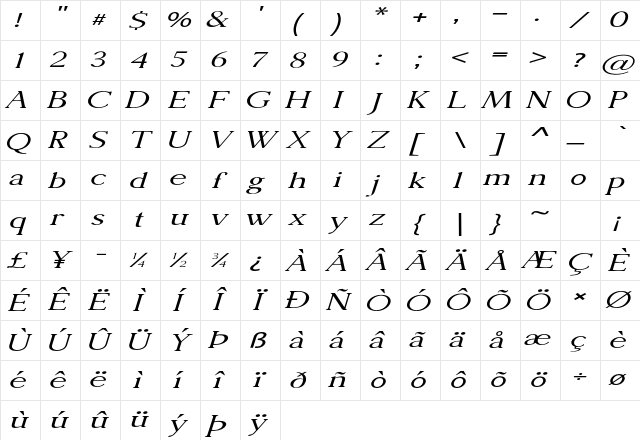
Toplar Extra-expanded Italic
Style: Extra-expanded Italic
Toplar Family
Toplar Extra-expanded Italic
Design Context for Toplar
Toplar is a composed and adaptable typeface that performs quietly and consistently across a wide range of design contexts. The slanted form adds forward momentum and visual energy.
Pro Tip: Use Toplar for emphasis, pull quotes, and subheadings where its slanted energy can add rhythm to the layout.